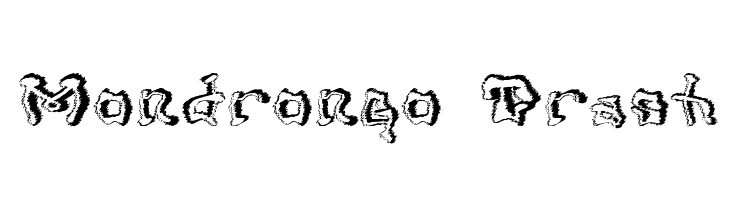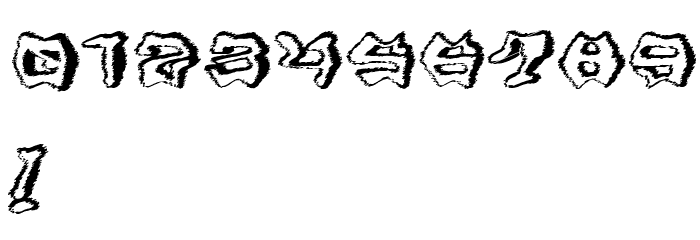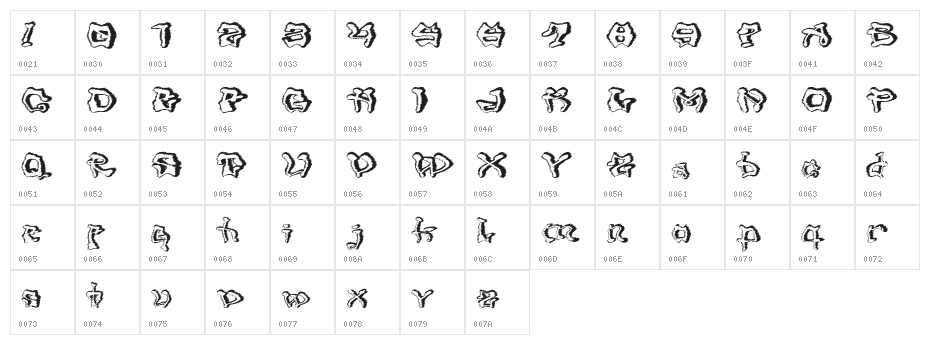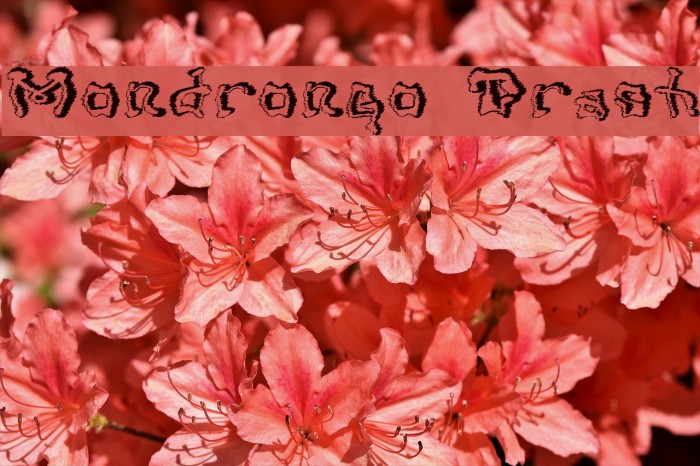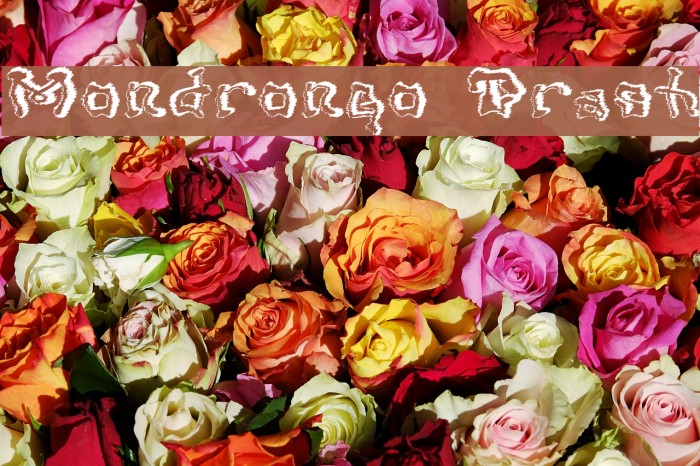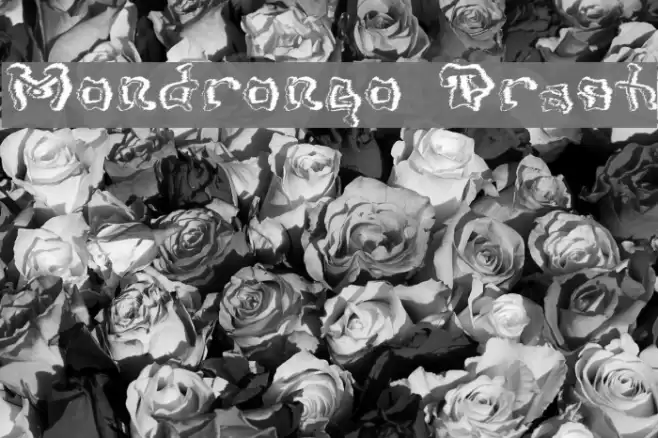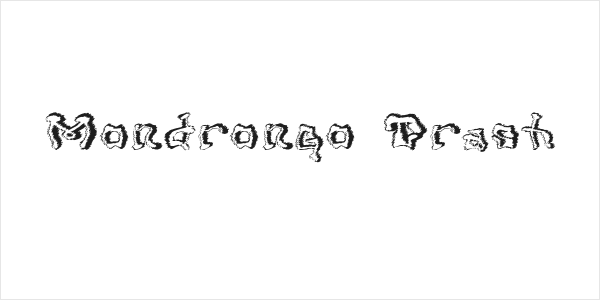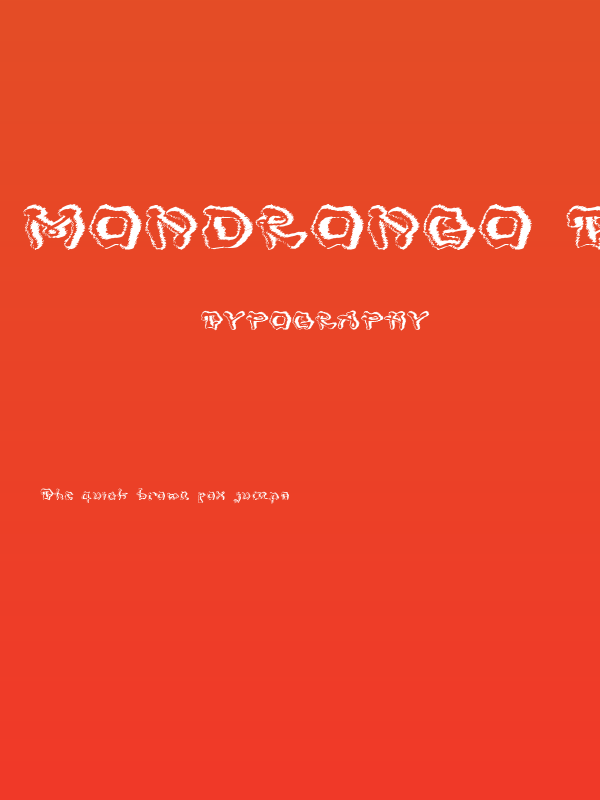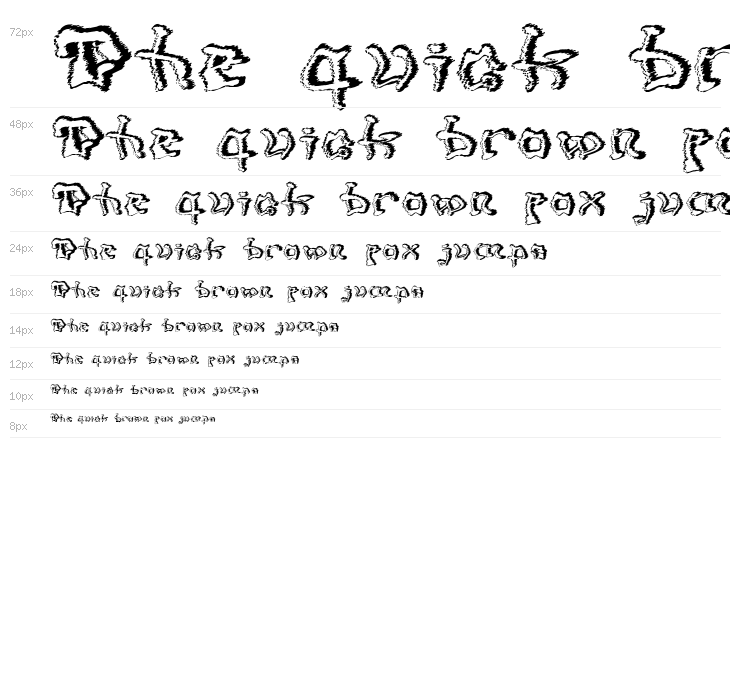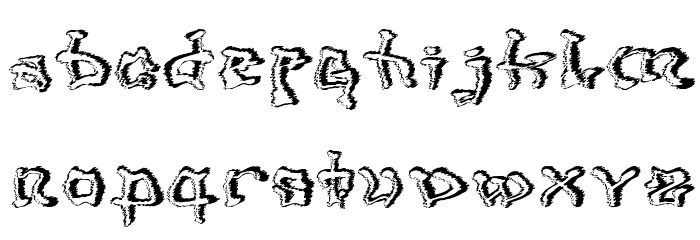
Mondrongo Trash Font
Mondrongo Trash Description
This font features a highly decorative and textured style, reminiscent of graffiti or urban art. The characters are bold and irregular, with jagged edges and a rough, hand-drawn appearance. Each letter is unique, with varying thicknesses and a distressed look that gives it a dynamic and edgy feel. The numbers and special characters follow the same aesthetic, maintaining the chaotic yet artistic vibe. This font is ideal for projects that require a bold statement or an unconventional, artistic touch.
MONDRONGO-TRASH UPPERCASE
MONDRONGO-TRASH LOWERCASE
MONDRONGO-TRASH OTHER CHARS